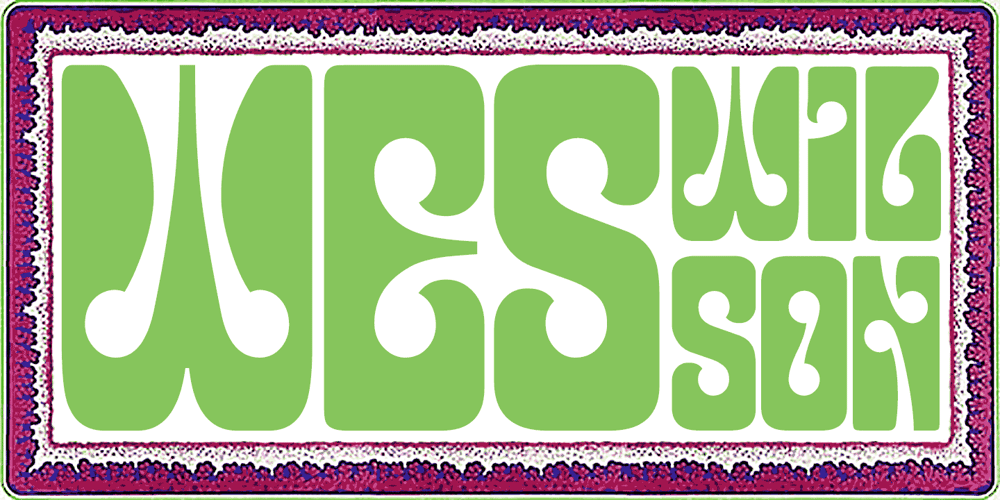
Wes Wilson Font Family was designed by published by K-Type. Wes Wilson contains 1 styles and family package options. The Wes Wilson font is an all capitals typeface inspired by the pioneer of 1960s psychedelic poster design, the Californian artist Wes Wilson. A key influence on the letterforms is the work of Austrian Secessionist, Alfred Roller, but this font, like Wilson’s own lettering is more freeform and playful.